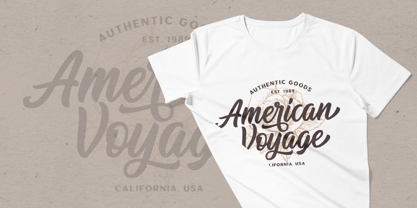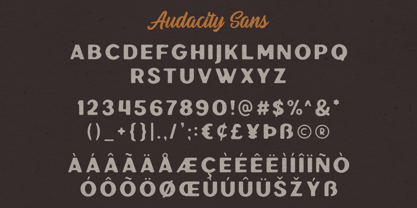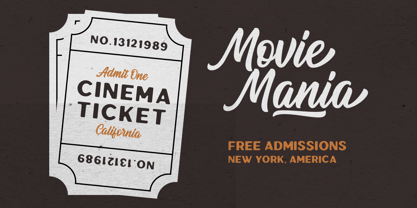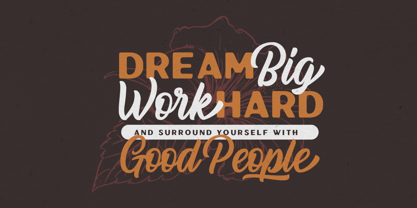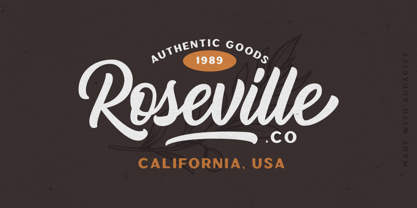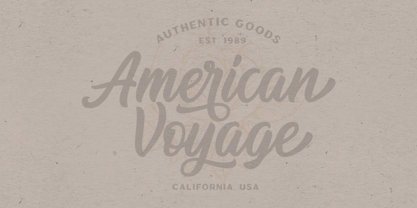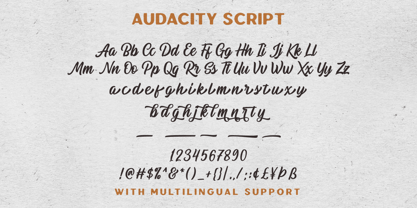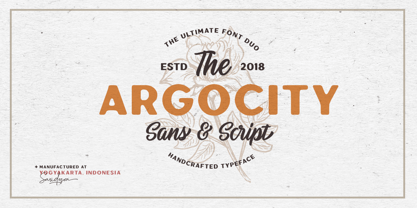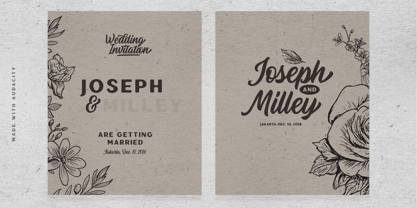
Argocity
von Sarid Ezra
Die Schriftfamilie Argocity wurde von Sarid Ezra entworfen und von Sarid Ezra veröffentlicht. Argocity enthält 2 Stile und Familienpaketoptionen. Mehr über diese Familie
Argocity is my newest font duo. Contain two fonts, the rough sans and a free hand lettering script. You can use this font for every project. Suitable for branding logo, hand lettering, or apparel design. This ultimate font duo also come with FREE flower illustrations that you can use for background to make vintage looks design. This font duo also support multilingual, number and symbol, alternates, swash, and underline. Also this font already PUA Encoded.
Designer: Sarid Ezra
Foundry: Sarid Ezra